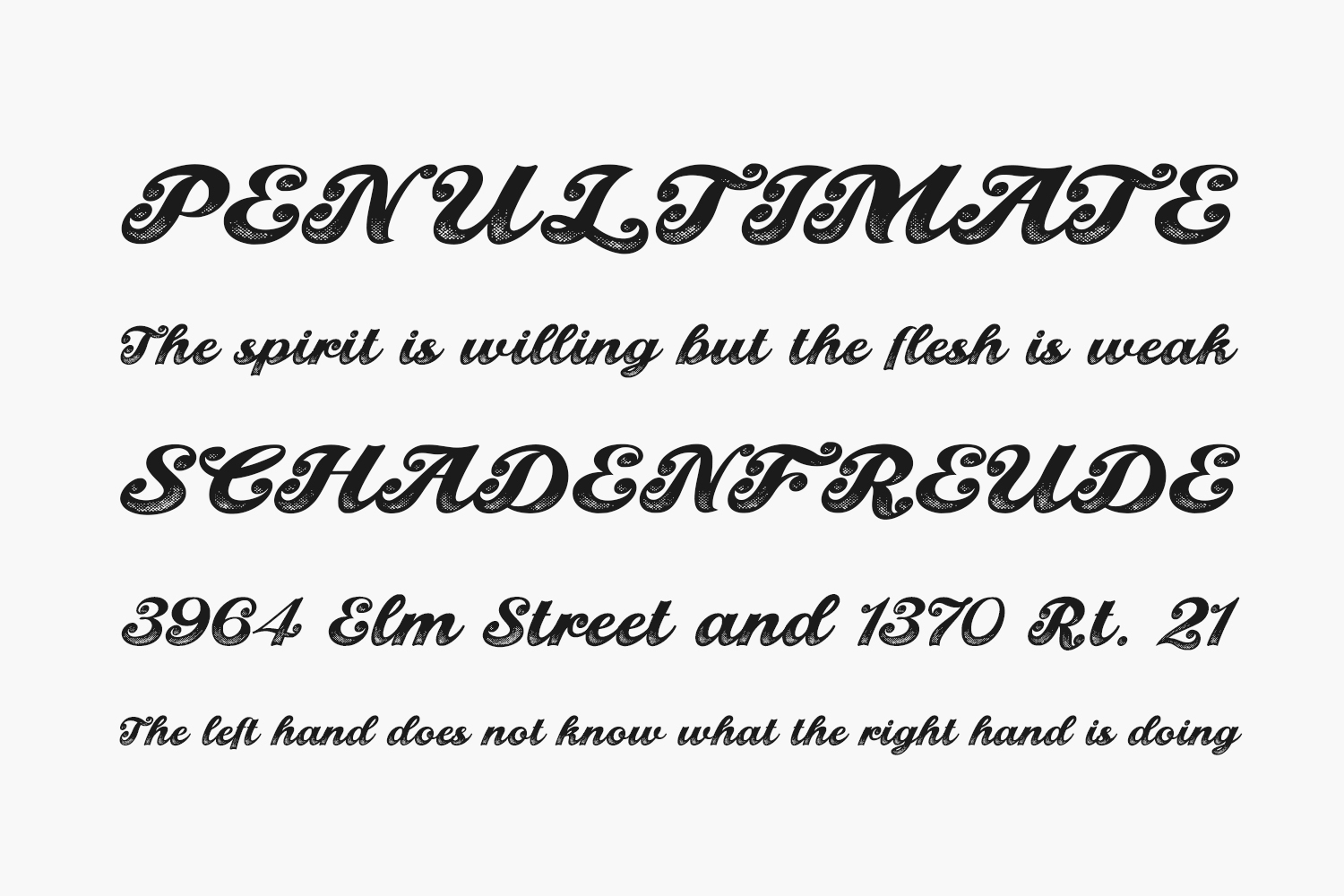
Introducing Flamouse Free Font, a captivating retro-style script font featuring a bold design with a distinctive halftone texture at the bottom. This font is perfect for enhancing retro aesthetics in various design projects, particularly well-suited for food and beverage brands, classic American-style restaurants, supermarket promotions, and even as signage for hotels. Elevate your visuals with the nostalgic charm of Flamouse Free Font. Flamouse Free Font was designed by Ilhamtaro and is free for personal use only. Please purchase the full version for commercial use.